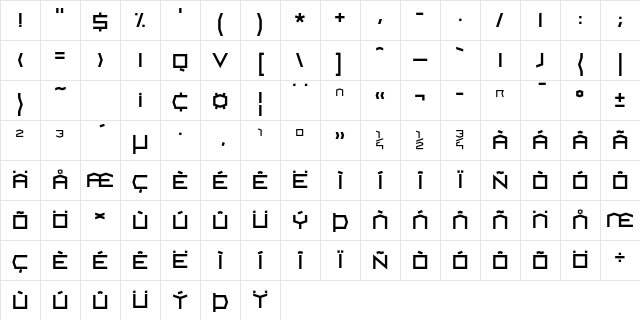
Wrocislaw Normal
Foundry: Adam Rucki
Designer: Adam Rucki
Design Context for Wrocislaw
Wrocislaw is a composed and adaptable typeface that performs quietly and consistently across a wide range of design contexts.